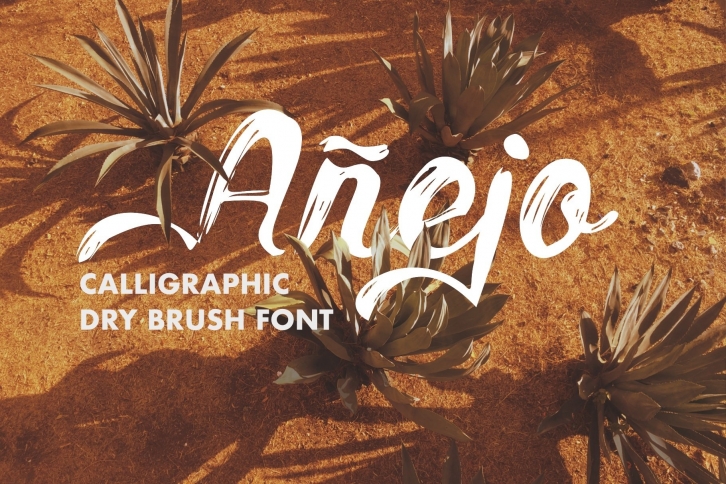
Au00f1ejo is a beautiful font that was designed by Etewut. It's a great choice for designers and creatives who need such a font. It was released on August 7, 2020 and the file size is 8.46 MB. Au00f1ejo may give a more youthful, expressive and casual look to your project. It is a very beautiful, refined, elegant, and high-quality font.